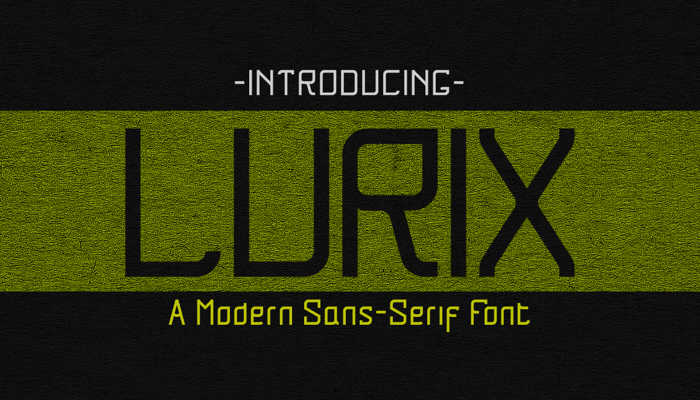
Lurix Font
Lurix is a modern sans serif font. Inspired by atmospheric sci-fi, Lurix has its own particular warm appearance of modern touch. With its extensive and open proportions, it makes a grand appeareance for your brand or your project.